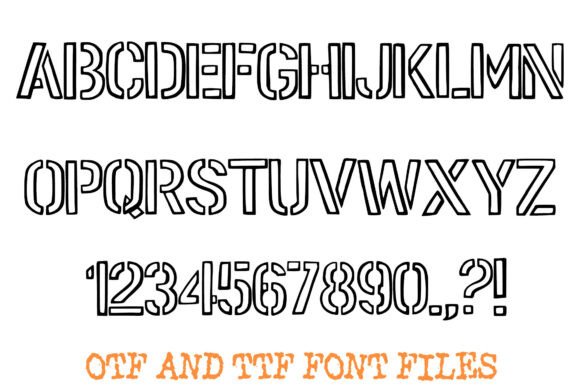
Introducing Army Stencil Outline Font: The Ultimate Military-Inspired Typeface
Are you looking for a font that exudes strength, discipline, and a touch of ruggedness? Look no further than the Army Stencil Outline Font, a bold and rugged military-style typeface that’s perfect for designers and crafters seeking a distinctive outlined stencil design. Inspired by authentic army lettering, tactical gear, and industrial stencils, this font delivers a strong, disciplined, and modern aesthetic that’s ideal for a wide range of design projects.
Key Features of Army Stencil Outline Font
- Distinctive Outlined Stencil Design: The Army Stencil Outline Font features a unique outlined stencil design that’s reminiscent of military stencils and tactical gear. The clean, geometric structure and bold lines make it perfect for creating eye-catching designs.
- Inspired by Authentic Army Lettering: This font is inspired by authentic army lettering, ensuring that it captures the essence of strength, order, and bold design.
- Perfect for Logos, Packaging, Posters, and More: The Army Stencil Outline Font is versatile and can be used for a wide range of design projects, including logos, packaging, posters, apparel, and print designs.
- Capital Letters in Black Outline: The font features capital letters in black outline, with . ? ! and numbers only, adding a touch of sophistication and elegance to your designs.
Design Applications for Army Stencil Outline Font
The Army Stencil Outline Font is perfect for designers and crafters working on a variety of projects, including:
- Military Branding: Create authentic and bold military-inspired branding with this font, perfect for logos, uniforms, and equipment.
- Patriotic Merchandise: Design patriotic merchandise, such as t-shirts, hats, and stickers, with a font that’s sure to evoke a sense of national pride.
- Adventure Sports: Use the Army Stencil Outline Font to create bold and rugged designs for adventure sports, such as hiking, camping, and extreme sports.
- Urban Streetwear: Add a touch of edginess to your urban streetwear designs with this font, perfect for logos, posters, and apparel.
Why Choose Army Stencil Outline Font?
So, why choose the Army Stencil Outline Font for your design projects? Here are just a few reasons:
- Unique and Distinctive Design: This font features a unique and distinctive outlined stencil design that’s sure to make your designs stand out.
- Versatile: The Army Stencil Outline Font is versatile and can be used for a wide range of design projects, from logos and packaging to posters and apparel.